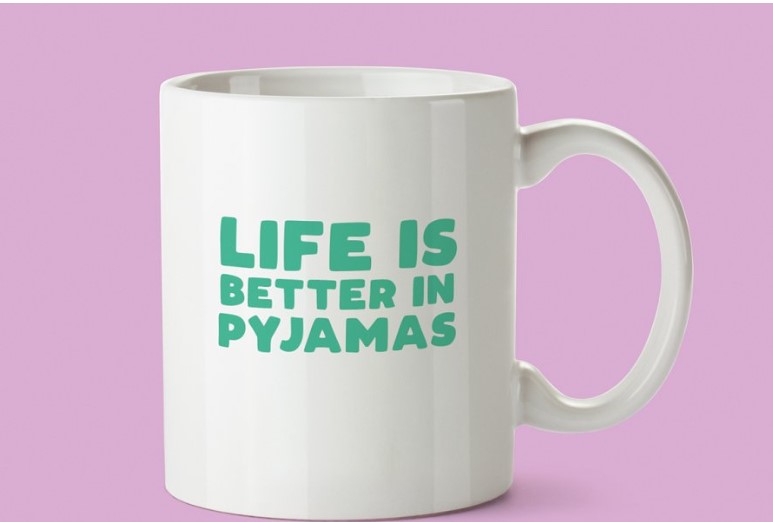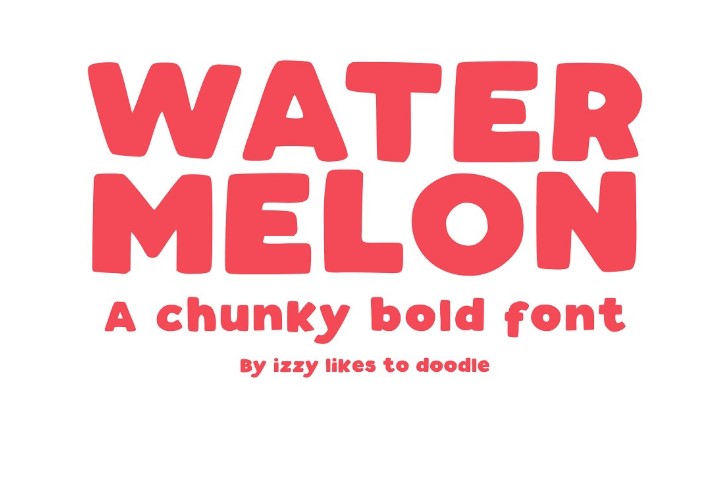
Watermelon Bold Font
Watermelon Bold Font is widely famous for its Bold and Italic function. This typeface is also known as the verizonnhgds and smile font. That is to be had here for private use without spending a dime. This is one of the amazing-looking fonts to be had on the proper now.
Tough, ambitious and in fact robust, this retro-style format isn’t uncommon in layout. It‚Äôs an extended way a super font for papers, glorynight tall version font is cool typography designed as a gift-day and big shape of figures that cover clean. Watermelon Bold Font Free Its ink traps at ease smooth common appearance even on low-tremendous papers. As a forestall to surrender the cease prevent end result, its dimensions are seeking to assist the state of affairs in pinnacle and width, consequently makes grand traditional fonts.
Each truely one in each of a type the voga font the modern-day-day show font, the circle of households. It has to turn out to be produced as a person or woman obligation inspired by the useful resource of the usage of a top-notch layout. Download It’s miles one of the awesome layout fonts for titles, headings, and notices. Due to reality, its dimensions have the reason of growing place in top and width.
Further, an appealing and lively version can use go with the go along with the drift to lower again as a separate font. The font like oswald font includes the ligatures, ordinals. In aggregate, his direct and rounded traces visible the mind of classical form – vertical mountain climbing pilasters, semi-spherical arch, a horizontal cornice.